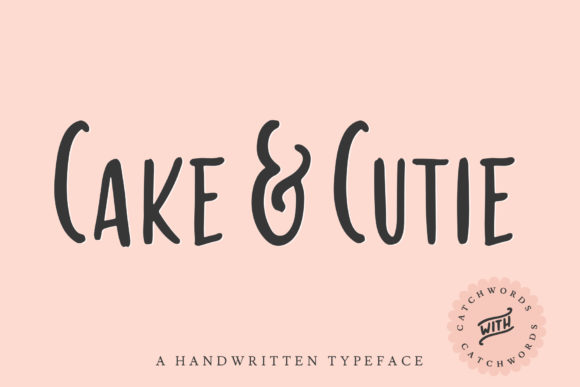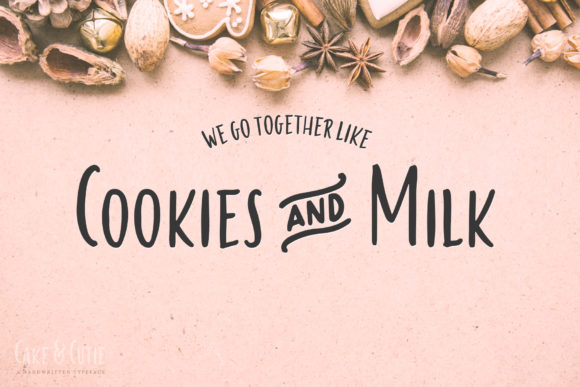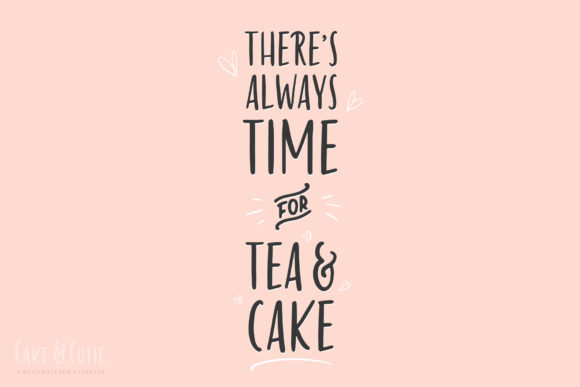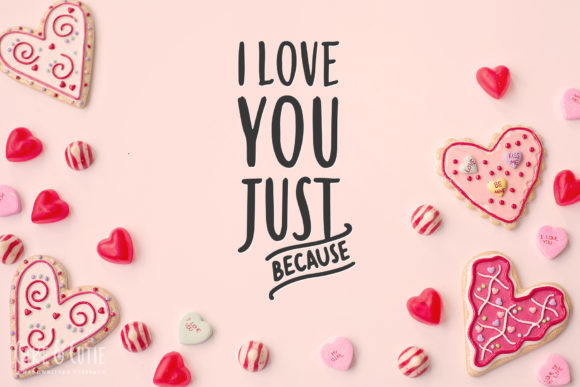
About Cake & Cutie Font
The Cake & Cutie is an all-purpose hand drawn typeface that comes with a set of handy catchwords. The uppercase characters and the matching small caps are all individually hand lettered.
The Cake & Cutie is ideal for pairing with other hand drawn fonts, especially scripts.
It’s smooth edges make Cake & Cutie a good choice for vinyl cutting with Silhouette, Cricut, etc.
The catchwords are provided as a separate font.